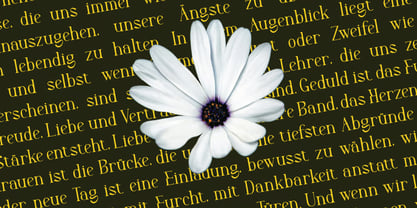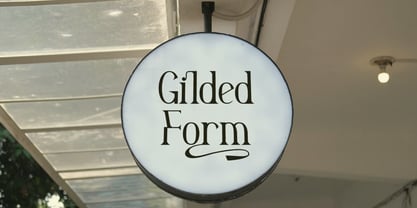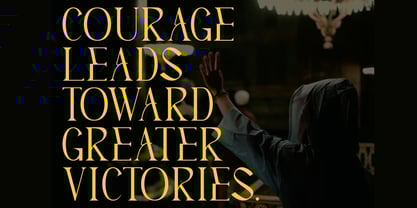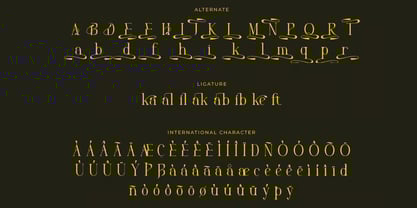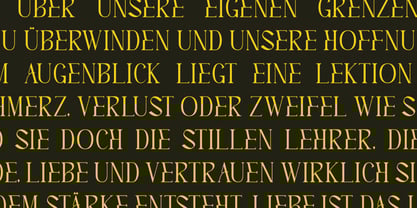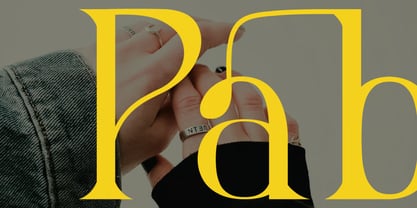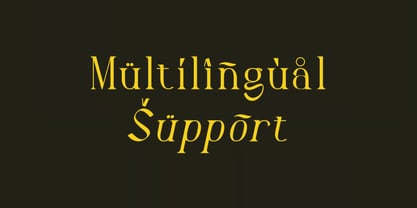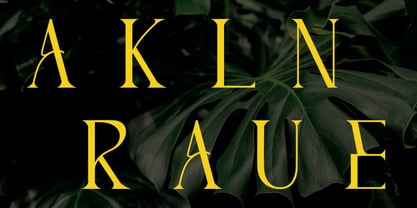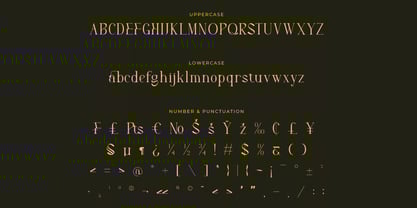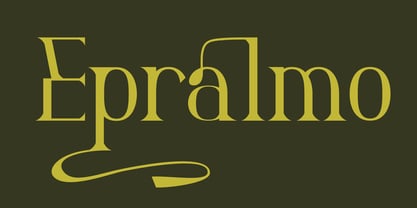
Epralmo
The Epralmo Font Family was designed by Hasnat Khan and published by Hasnat Studio. Epralmo contains 1 styles. More about this family
Epralmo is a premium serif typeface designed to provide a refined and distinguished appearance for a wide range of creative projects. Featuring clean lines, sharp serifs, and elegant proportions, Epralmo embodies sophistication and timeless style, making it ideal for designs that demand a distinctive, premium, and professional touch. From luxury branding and editorial layouts to packaging and digital design, Epralmo offers versatility, balance, and readability. Crafted with precision, it includes ligatures, stylistic alternates, and multilingual support, making it an excellent choice for designers seeking both beauty and functionality in typography. ✿ Key Features: - Elegant Serif Design: Merges classic charm with modern precision for a striking visual impact. - Ligatures & Alternates: Enrich your designs with stylistic diversity and unique character combinations. - Multilingual Support: Accommodates 65+ languages, including English, French, German, Italian, Spanish, and more. - PUA Encoded: Easily access all special glyphs and alternates without the need for additional design software. - Optimized Compatibility: Functions seamlessly on both Mac and Windows platforms. - Easy Installation: Quick setup and instant usability for all creative endeavors. - Fully Compatible with Major Software: Available in Adobe Illustrator, Photoshop, InDesign, and Microsoft Word. ✿ Perfect For: - Luxury Branding & Logos: Ideal for brands that convey sophistication, elegance, and trust. - Editorial & Print Design: Excellent for magazines, book covers, and elegant typographic layouts. - Packaging & Product Design: Adds a premium and professional touch to product labels and branding materials. - Digital & Web Design: Delivers refined, high-quality typography for websites and social media. Elevate your projects with Epralmo — a premium serif typeface that harmonizes classic elegance with modern craftsmanship, ensuring your designs make a lasting impression.